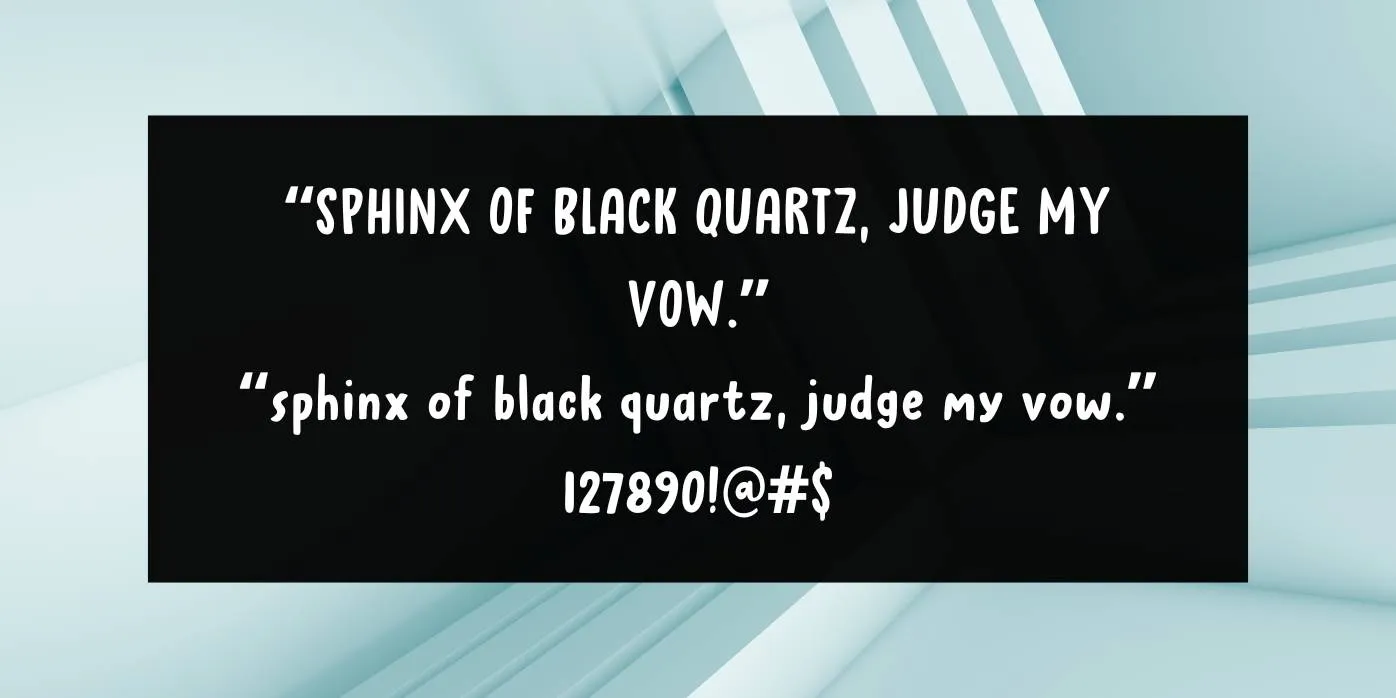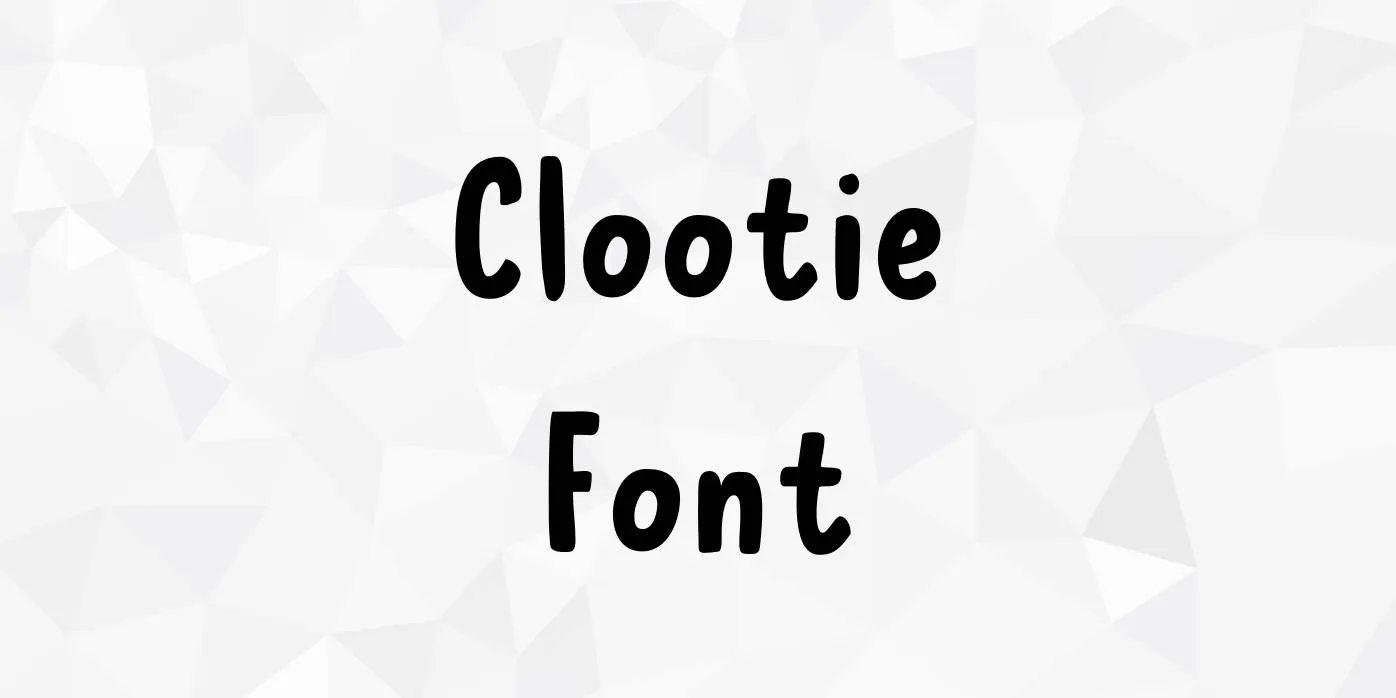
Clootie Font
Introducing you to a fancy typeface that has bold, big, and readable characters named Clootie Font. Hanoded designed this fancy typeface. This font style is available in both TrueType and OpenType Format. This typeface is free for personal use.